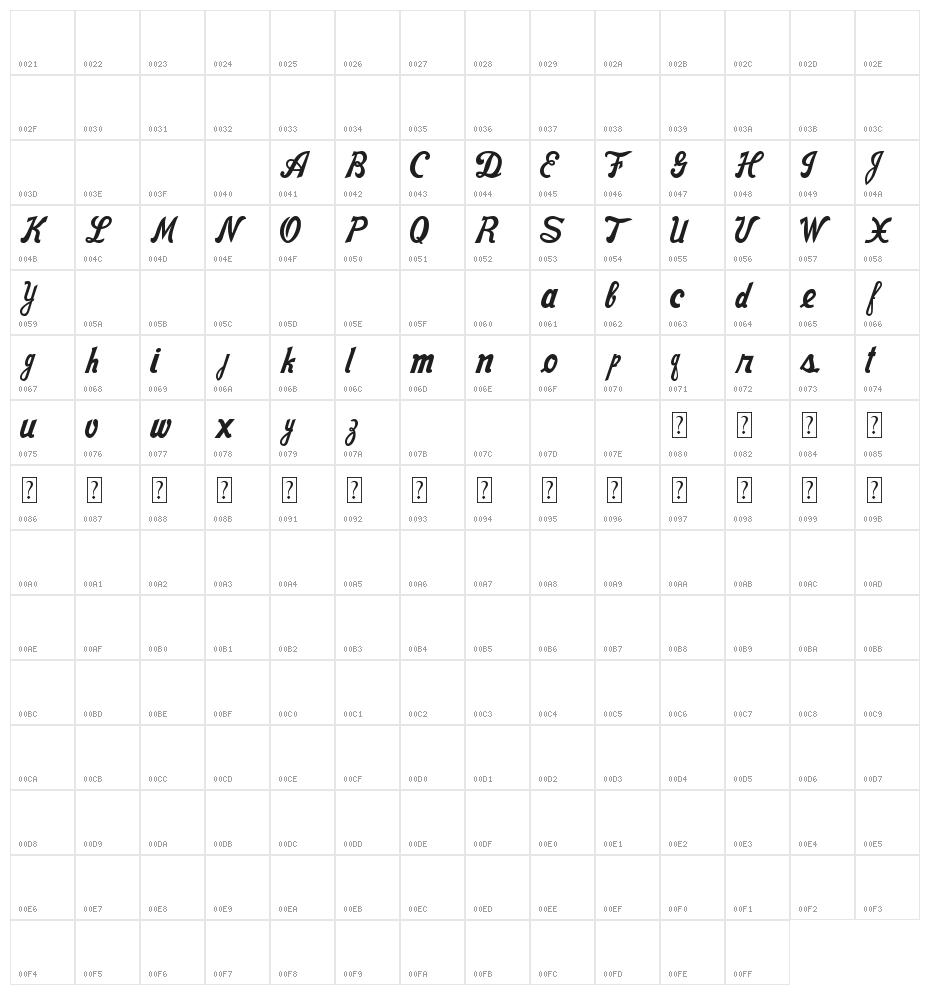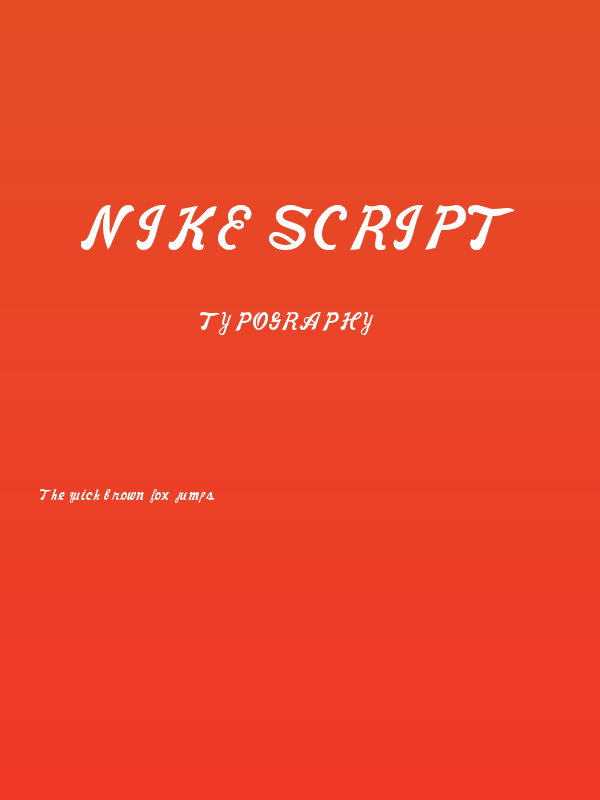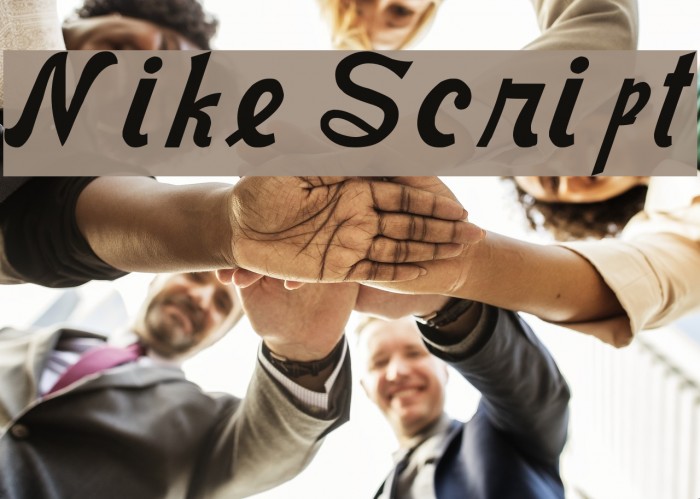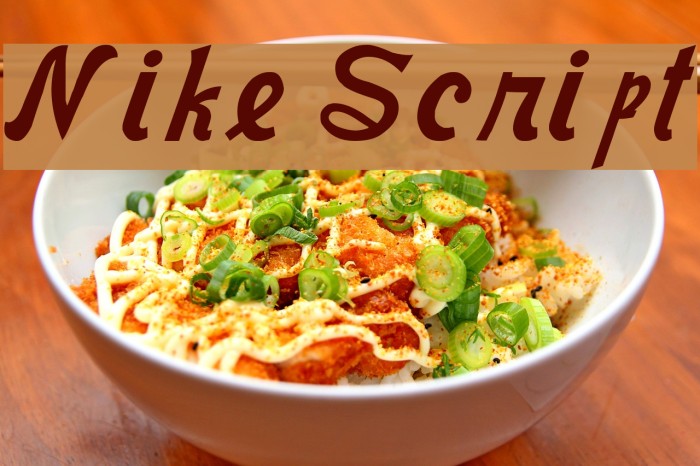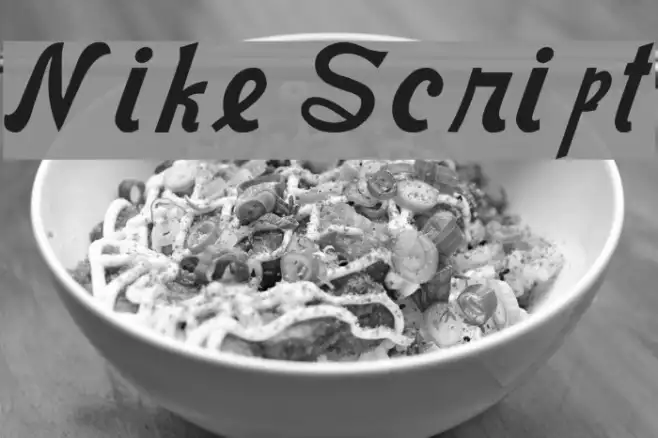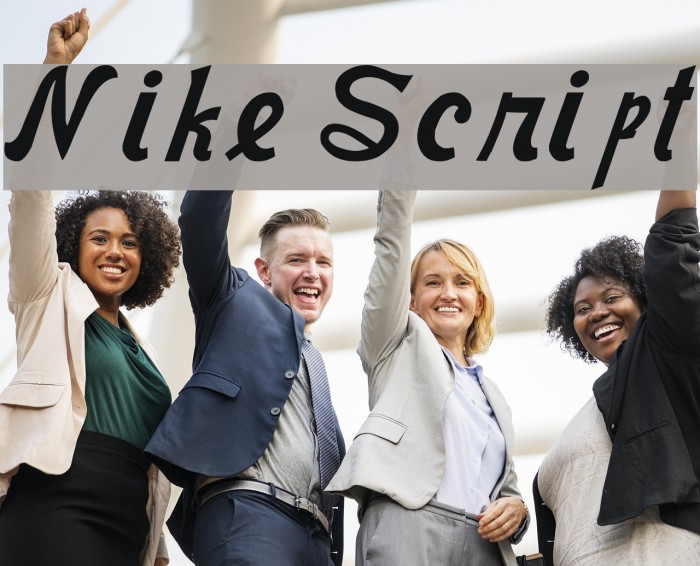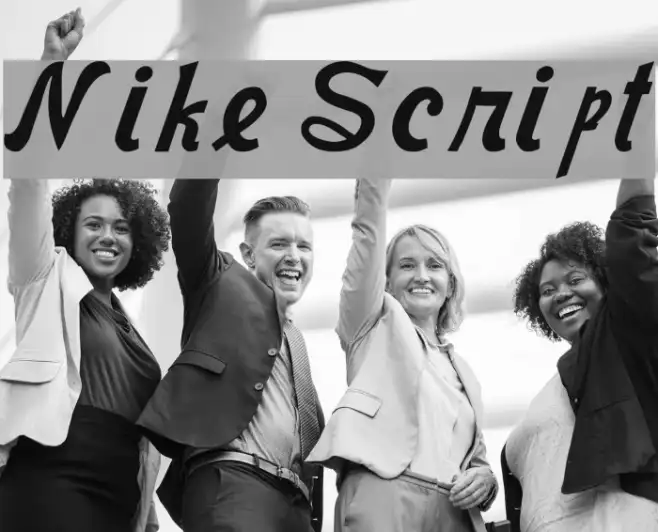
Nike Script Font
Nike Script Description
This font features a dynamic and flowing script style, characterized by its elegant curves and fluid strokes. The uppercase letters exhibit a sophisticated flair with subtle flourishes, while the lowercase letters maintain a consistent rhythm and balance. The font's design is reminiscent of classic calligraphy, yet it incorporates a modern twist with its bold and confident lines. The characters are well-spaced, ensuring readability while preserving the artistic essence. This font is ideal for projects that require a touch of elegance and creativity, such as branding, invitations, and editorial design.